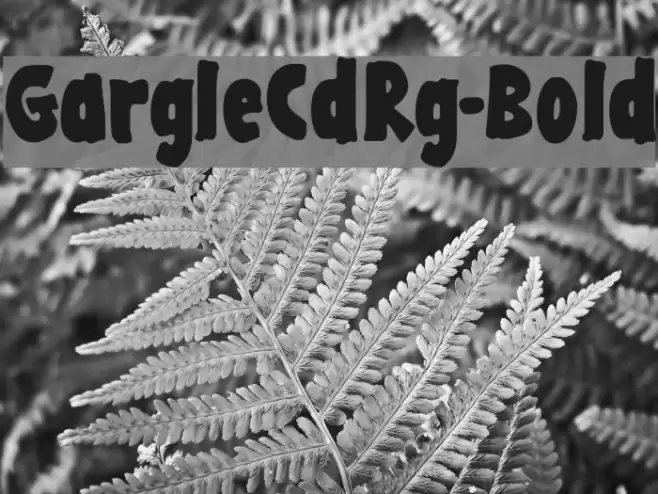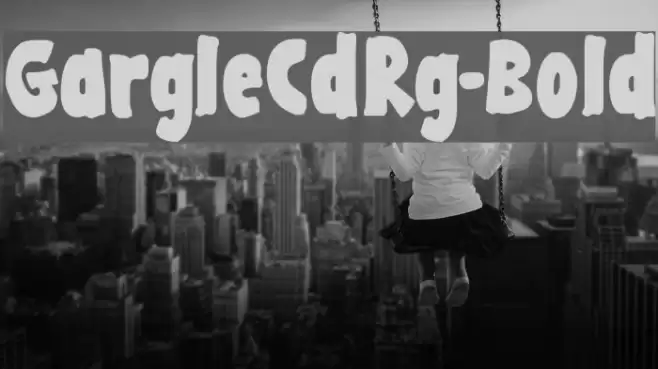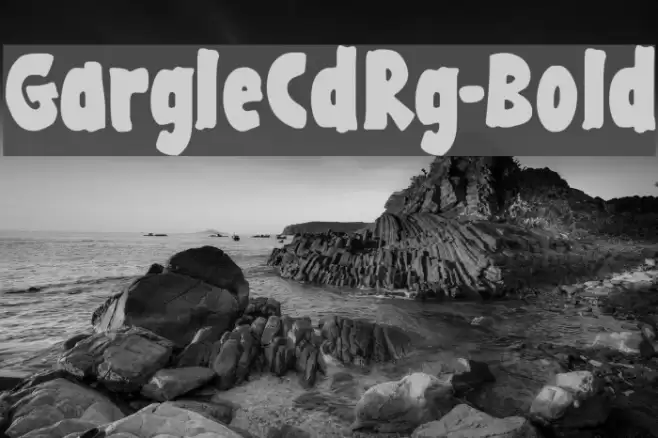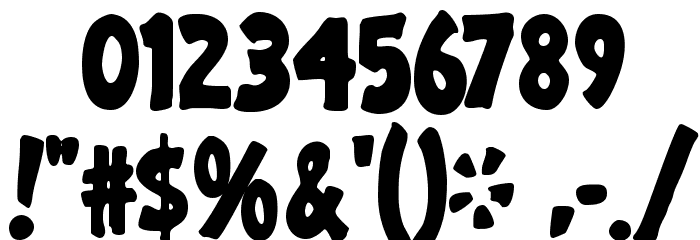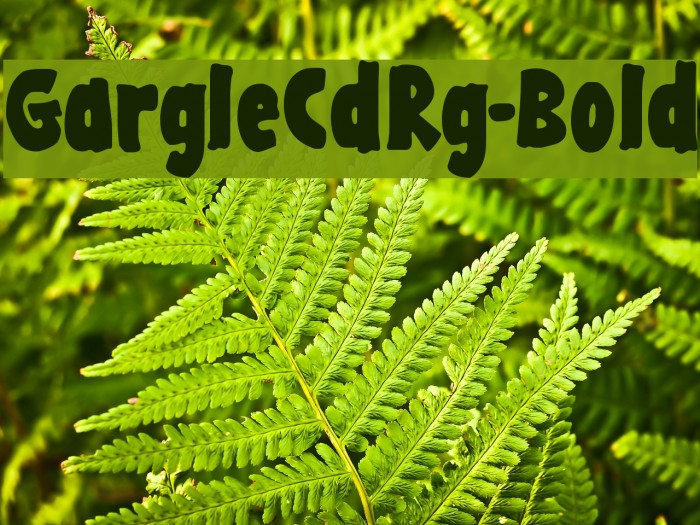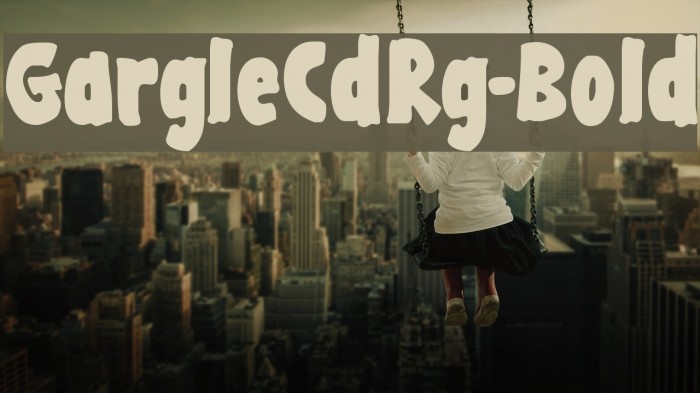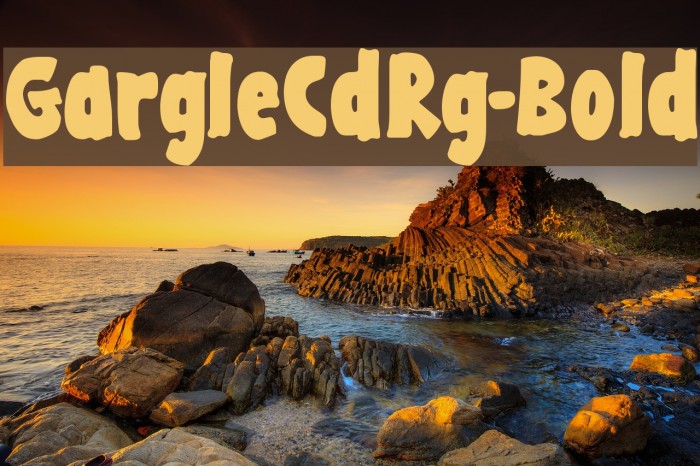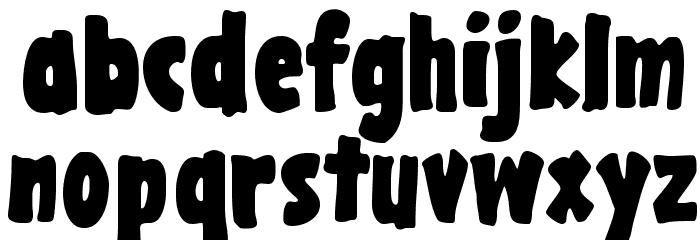
GargleCdRg-Bold Font
GargleCdRg-Bold Description
This font features a bold and playful design with a hand-drawn aesthetic. The characters are thick and rounded, giving a friendly and approachable feel. The uppercase and lowercase letters maintain a consistent style, with slight variations that add to the whimsical nature of the font. The numbers and special characters are equally bold, ensuring readability and visual impact. This style is ideal for projects that require a fun and informal touch.
A bold, playful, and hand-drawn style font with rounded characters from Comic fonts.
- Proposed Projects: Perfect for children's books, playful branding, posters, and social media graphics.
- Overall Style: Playful, Whimsical